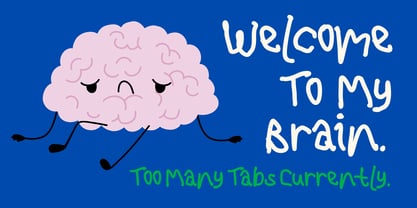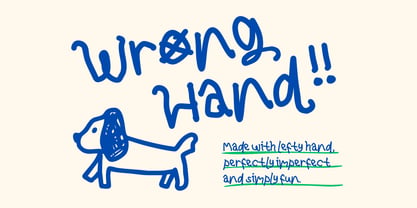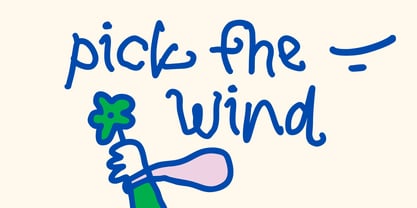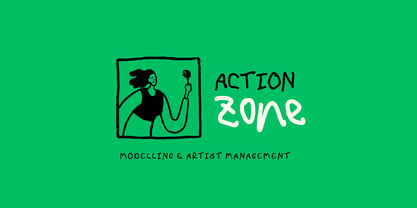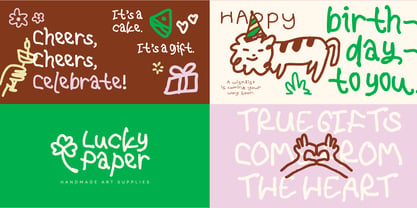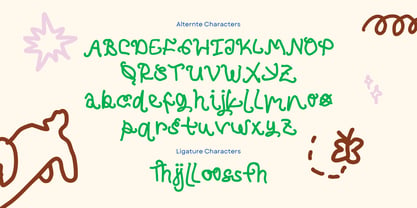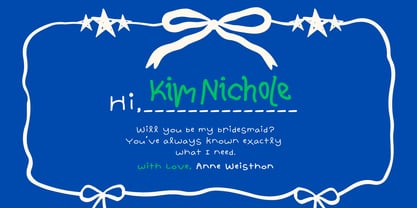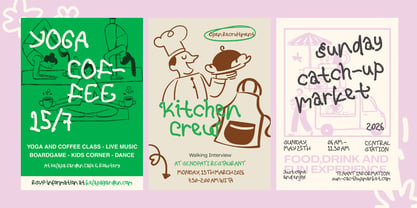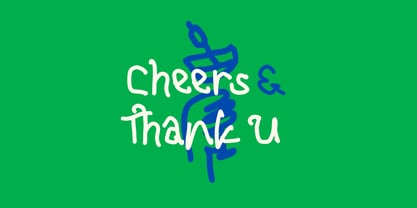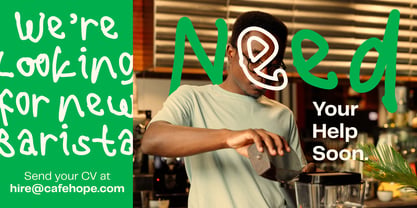
Wronghand
by Sloulyfe Studio
The Wronghand Font Family was designed by Amelia Dian Isnaini and published by Sloulyfe Studio. Wronghand contains 1 styles. More about this family
Not too neat, not too serious — just the right kind of weird. Wrong Hand is a playful handwritten font created with the left hand, bringing carefree doodle vibes, imperfect curves, and a cute chaotic style perfect for posters, stickers, packaging, and fun creative projects.
Features :Uppercase & lowercase, Numbers and punctuation, Alternates or Ligatures, Multilingual support & PUA encoded
Designers: Amelia Dian Isnaini
Foundry: Sloulyfe Studio